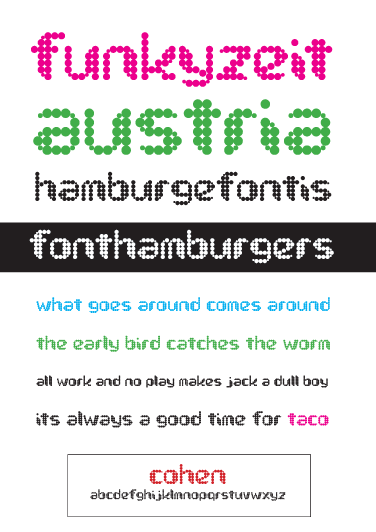
• very much inspired by the screen design of a fictional television show hosted by Bruno, a charakter created by comedian Sacha Baron Cohen. Hence the name. If someone knows if there exists a typeface used for the original please let me know.
Love the interpolation of that little dot. It's great what a crucial difference such an idea makes.
yeah i really liked that idea as well. i just reedited the typeface a little. now there's a little space between the dots like it was originally supposed to be.
I like it a lot: simple concept, original and beautiful letterforms, smart visual corrections that skip the trap of a boring antialiasing effect.
It would be nice to see it fully developed with UC and numerals.
This font looks very similar to Chuck Chillout by Pizzadude:
Nice. Its interesting to see the commonality of our typographic inspirations. I've also built the entire lowercase after viewing a DVD of the Ali G show and witnessing Sacha Baron Cohen's comedic genius. I couldn't find the source either, but it looks like jimhv got it right.
Playful. There seems to be more space between letters in your samples.